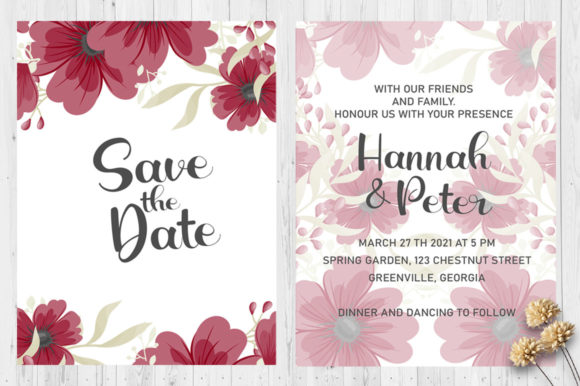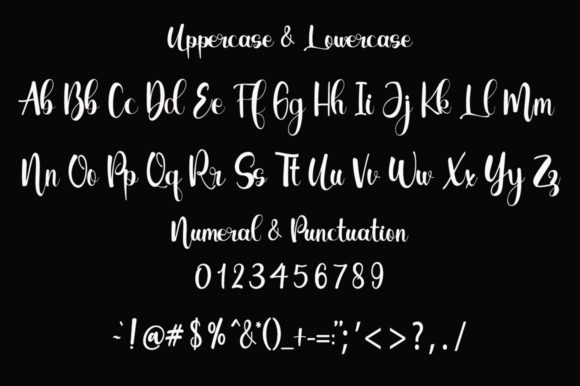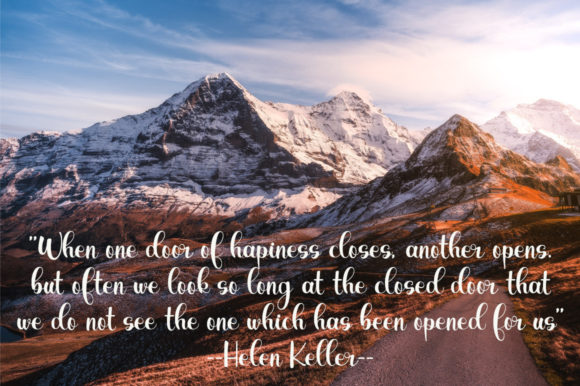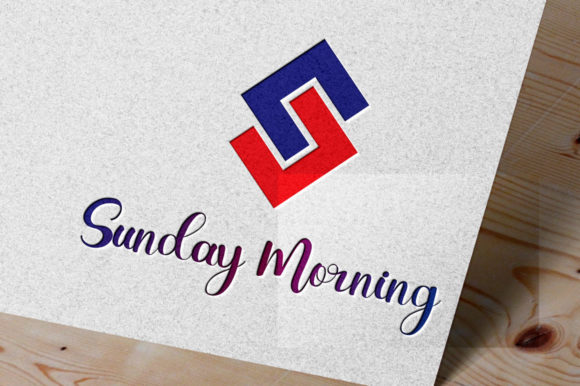
There’s something magical about sitting at your desk, surrounded by scraps of paper and half-finished designs, as you try to bring your latest project to life. The blank page stares back at you, begging for inspiration. And then, it hits you – a spark of creativity that sets your imagination ablaze. For designers, this moment is what makes all the late nights and early mornings worth it.
One tool that can help make this moment even more special is the Carenina Font, a stunning calligraphic script that adds a touch of elegance to any design. Whether you’re working on a wedding invitation, a logo, or a label, this font’s clean and modern lettering is sure to impress. With its PUA encoding, accessing all the glyphs and swashes is a breeze, making it a valuable addition to any designer’s toolkit.
So why settle for anything less when you can have the perfect script for your next project? Try the Carenina Font today and discover a whole new world of creative possibilities.
Carenina Font Key Features
- Font Family: Carenina Font is a unique, high-quality font family designed for various applications.
- Font Size: Carenina Font is available in 5 font sizes, ranging from 8 to 72 points, providing flexibility for different design needs.
- Resolution: Designed for high-resolution displays, the font is optimized for use at 300 DPI (dots per inch) and above.
- Unique Characteristics: Carenina Font features a distinctive, elegant design with subtle curves and flourishes, making it ideal for formal and creative applications.
- Character Count: The font family includes a wide range of characters, including Latin, Cyrillic, and Greek alphabets, as well as punctuation and special symbols.
Carenina Font Review
Carenina Font is a visually appealing, elegant script font that’s perfect for adding a touch of sophistication to your designs. ✨ One of the standout features of this font is its fluid, connected strokes that create a beautiful, handwritten feel.
Here are some things that work well in Carenina Font:
- Unique, elegant script style that adds a touch of sophistication
- Fluid, connected strokes that create a beautiful, handwritten feel
- Perfect for titles, headings, and other text that needs to stand out
- May not be suitable for body text, as it can be difficult to read at smaller sizes
- Some characters, such as the “g” and “q”, can be quite complex and may require additional design adjustments
- Lack of a bold or condensed version may limit its versatility
- May not be suitable for use in small spaces, as the connected strokes can make it difficult to fit text within tight constraints
Overall, I think Carenina Font is a beautiful addition to any designer’s toolkit. While it may have some limitations, its unique style and elegant feel make it perfect for adding a touch of sophistication to your designs. ✨
For the best results, use Carenina Font for headings and titles, as its elegant script style is perfect for emphasizing key messages.
For a more professional look, use Carenina Font in combination with other elegant fonts, such as serif or sans-serif fonts, to create a harmonious typography.
Use Carenina Font to add a touch of elegance to your presentations and documents, making them more visually appealing and engaging.
Carenina Font is perfect for:
- Business cards and branding materials.
- Magazine and newspaper headlines.
- Special occasion graphics and posters.
Remember to experiment with different font sizes, colors, and styles to get the
Alternatives to Carenina Font
Oswald is a sans-serif font that is perfect for titles and headings. It is highly legible and works well in a variety of contexts, from print to digital media. Oswald has a strong, geometric feel that makes it ideal for modern designs. Compared to Carenina Font, Oswald is more geometric and lacks the cursive feel of Carenina. It is also more versatile and can be used in a wider range of applications.